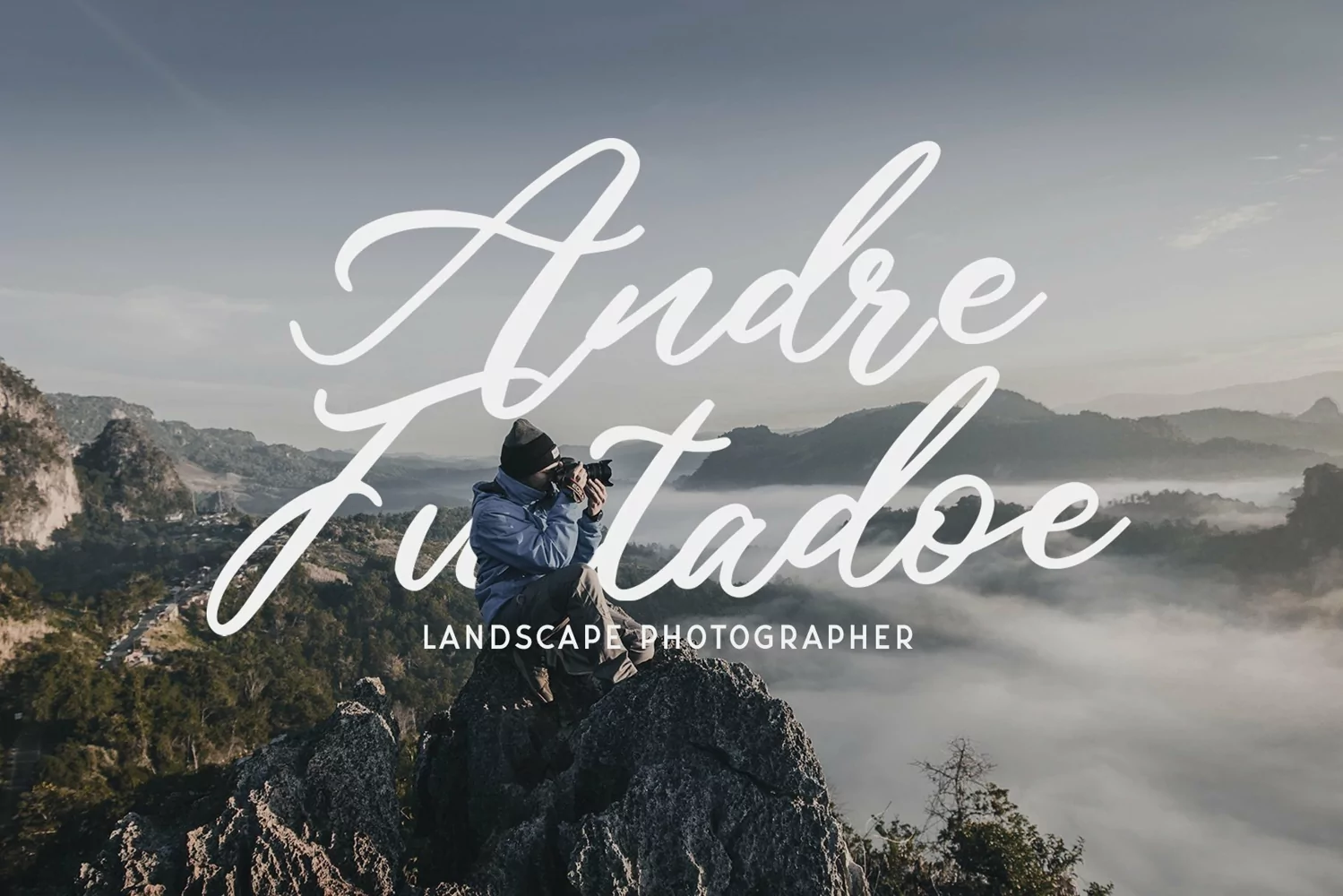
Chaeron is a brush script typeface. Perfect for display, quotes, posters, logo, logotype, branding, packaging, merchandise, business card, signature, print, t-shirt, business card, florist needs and many more.